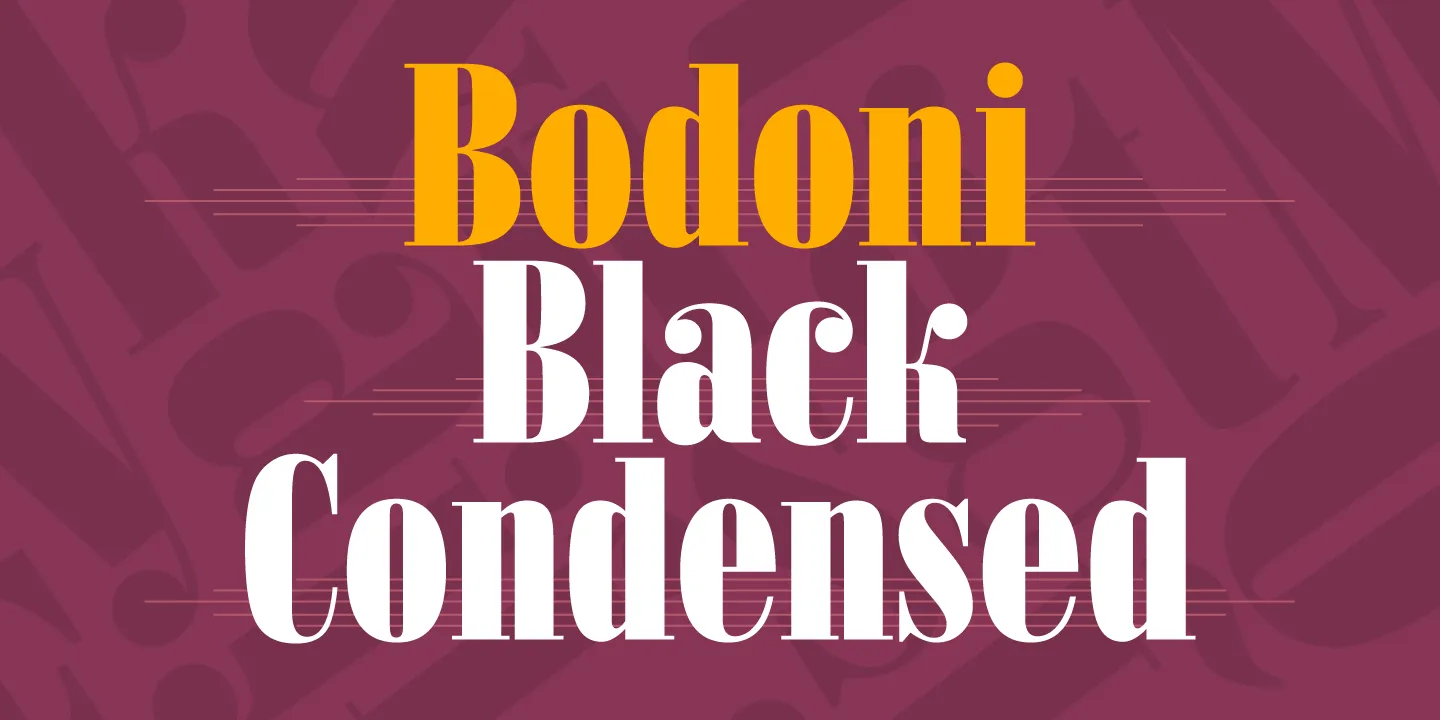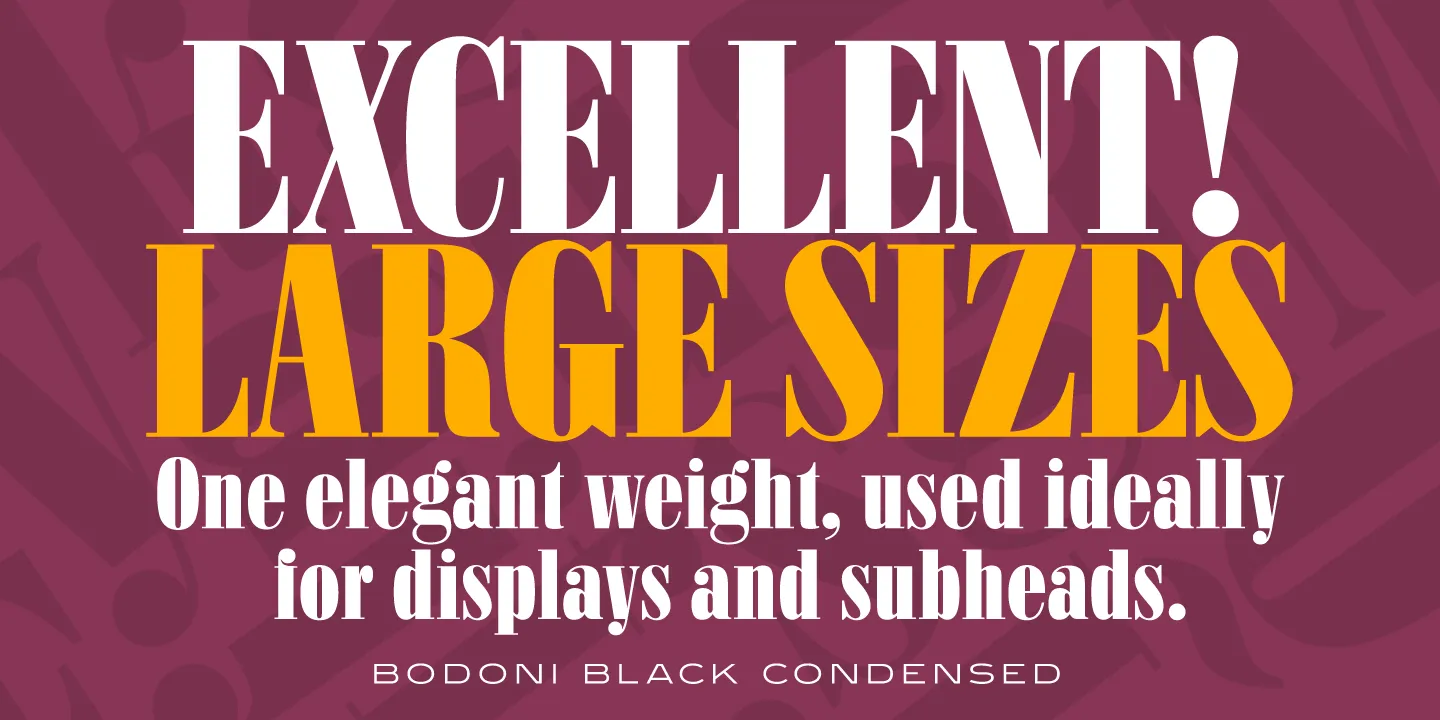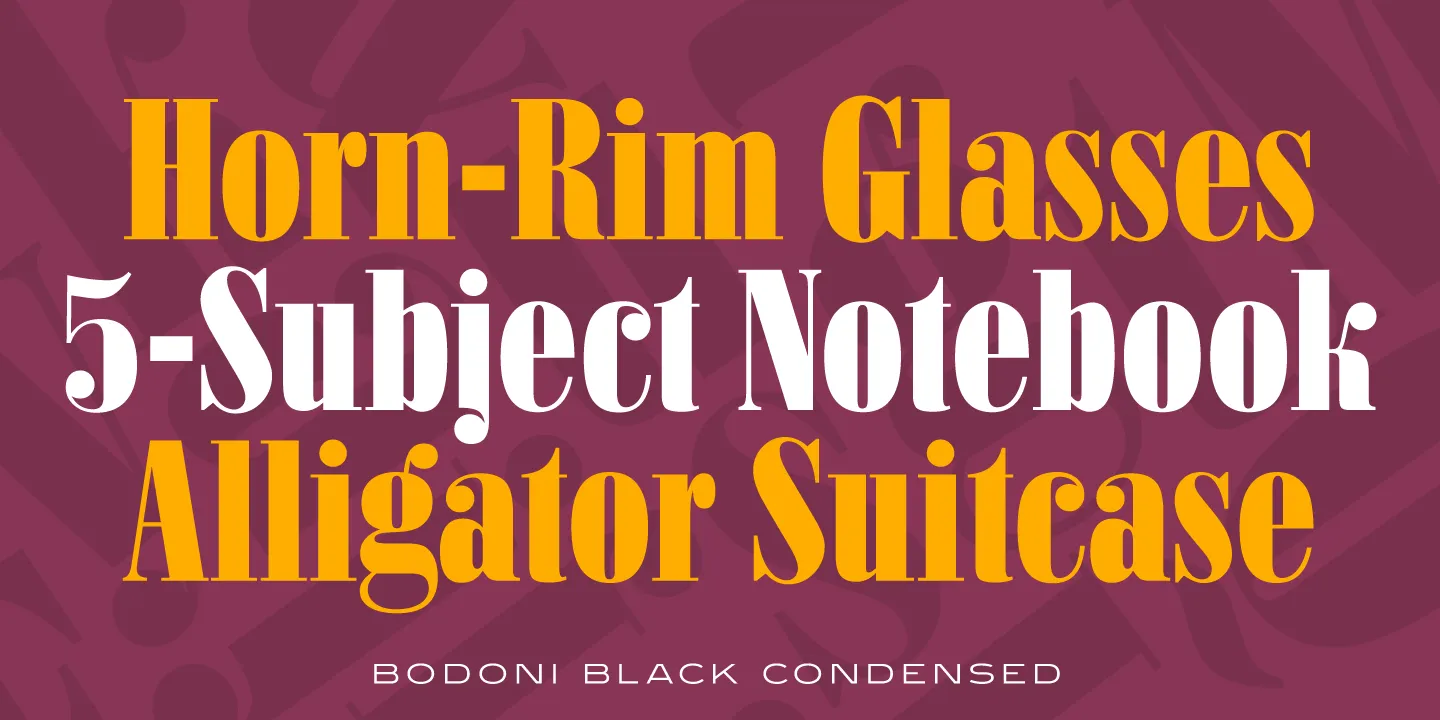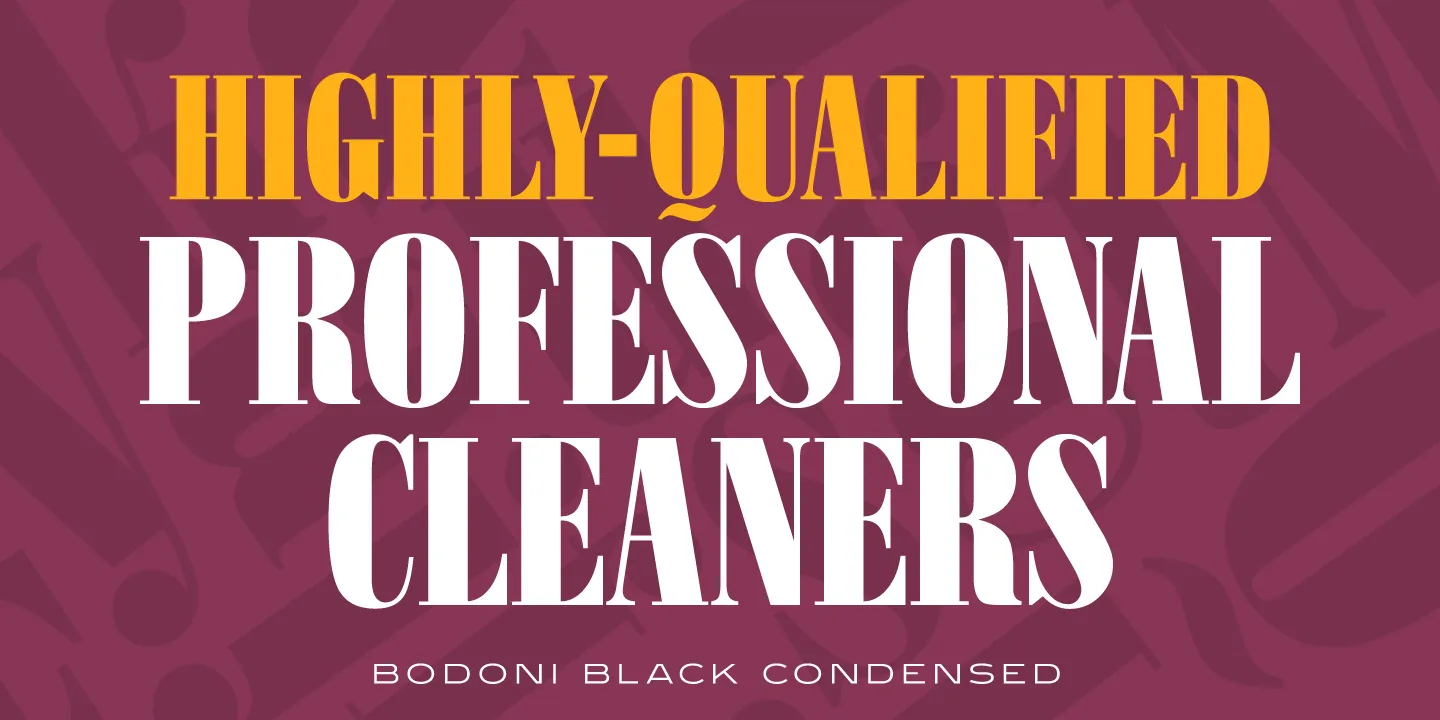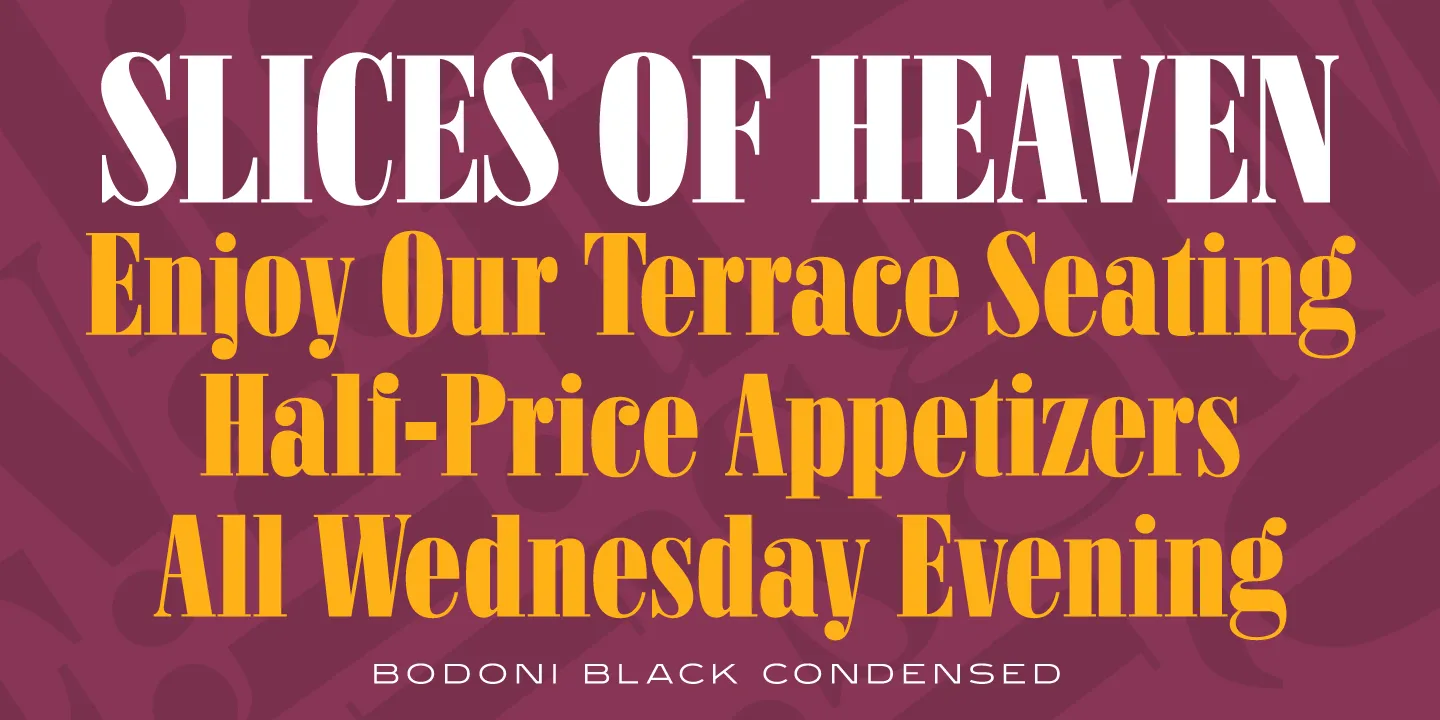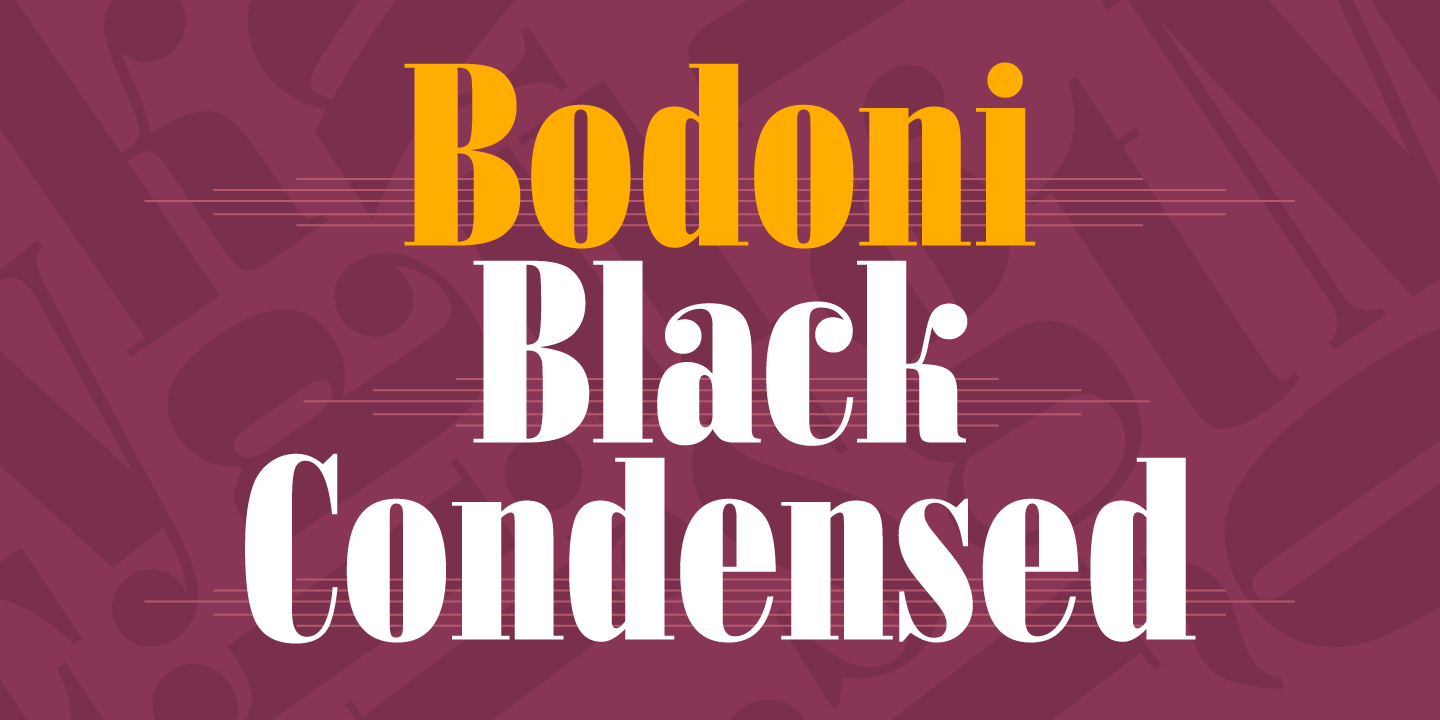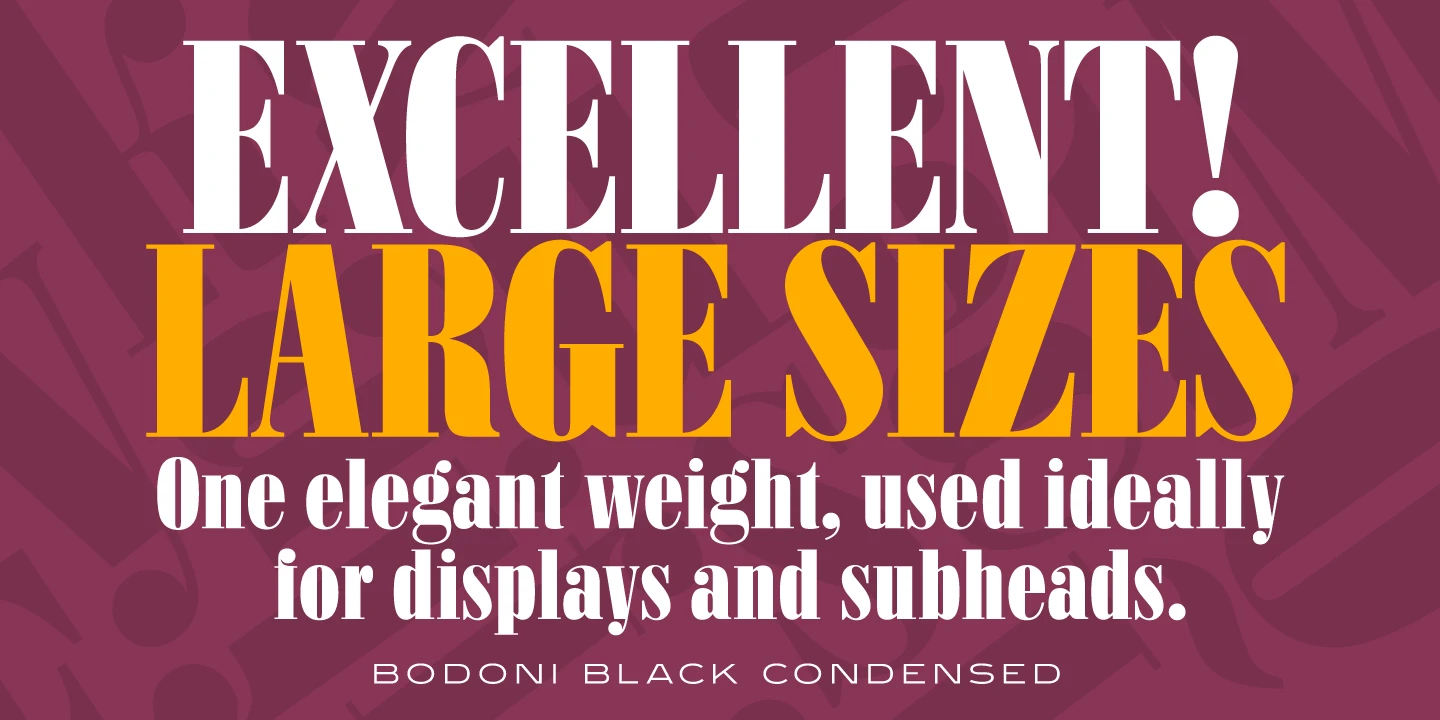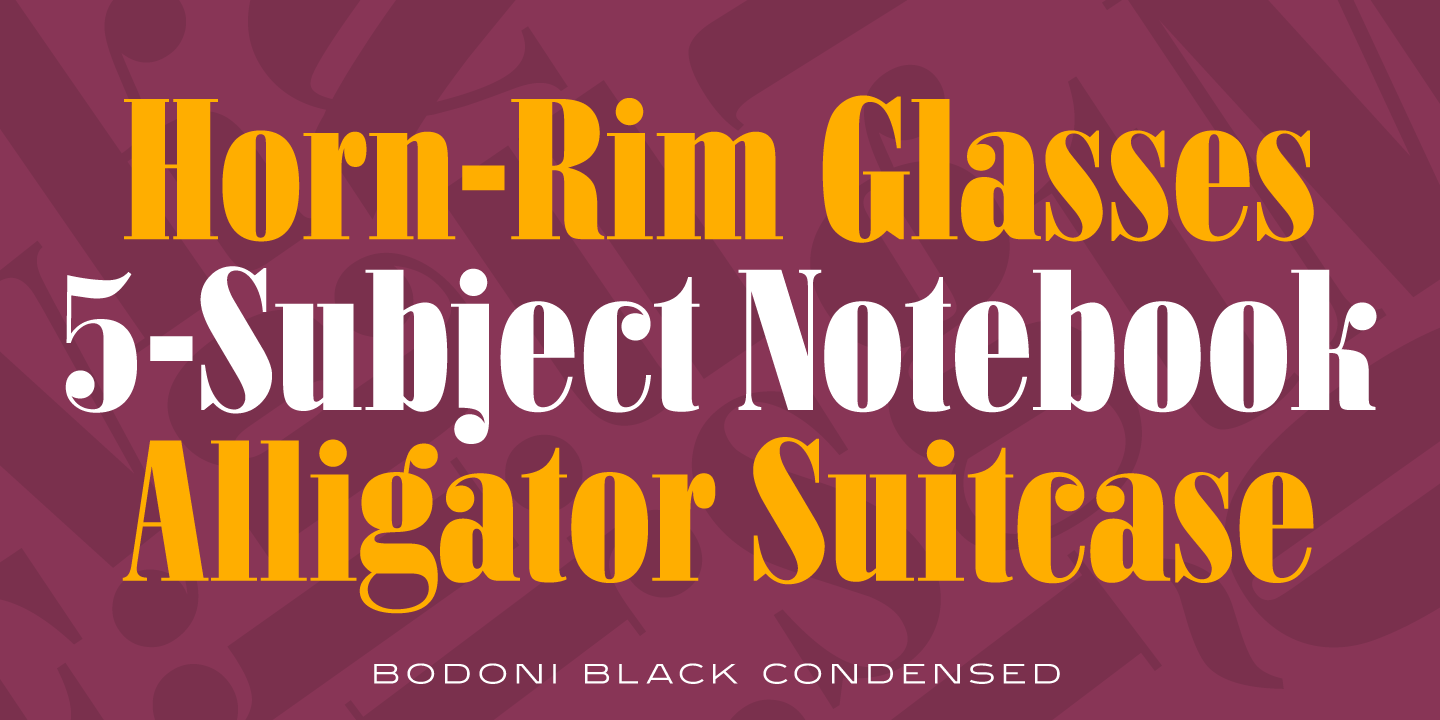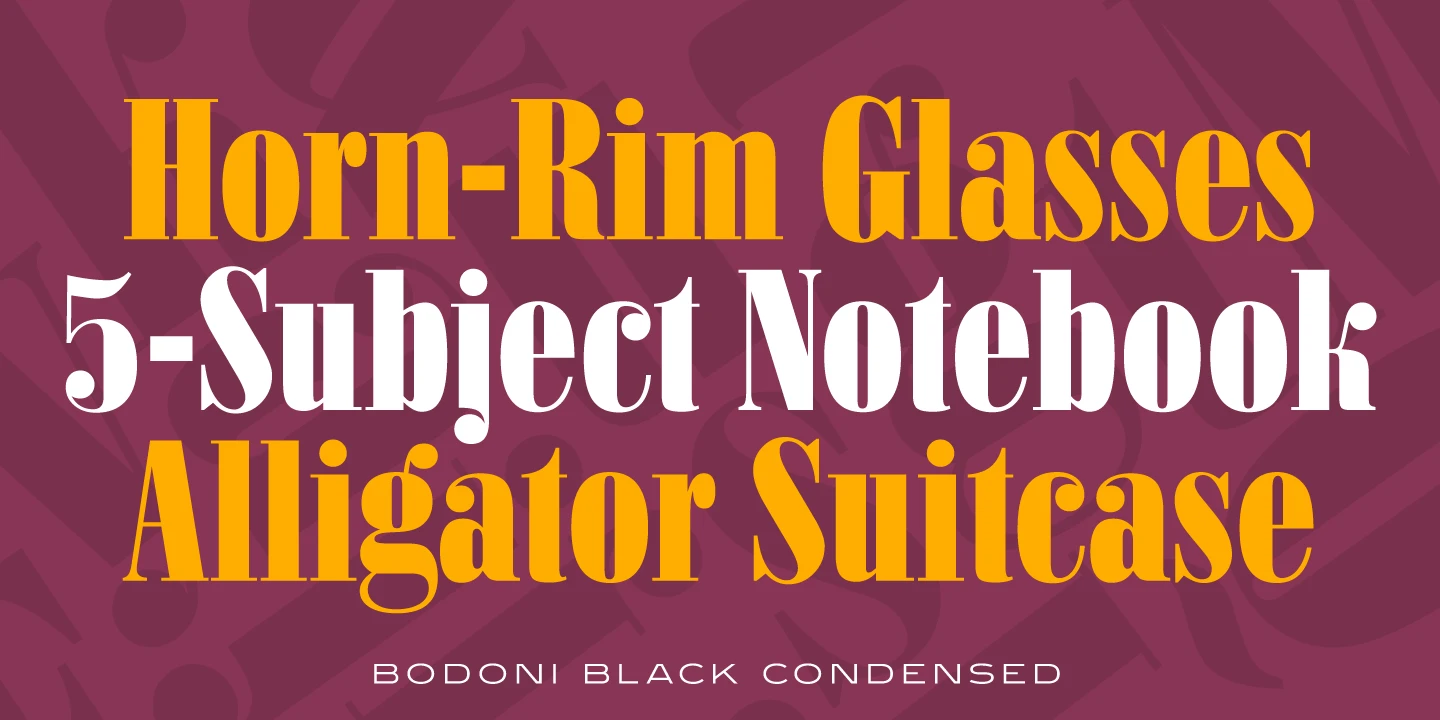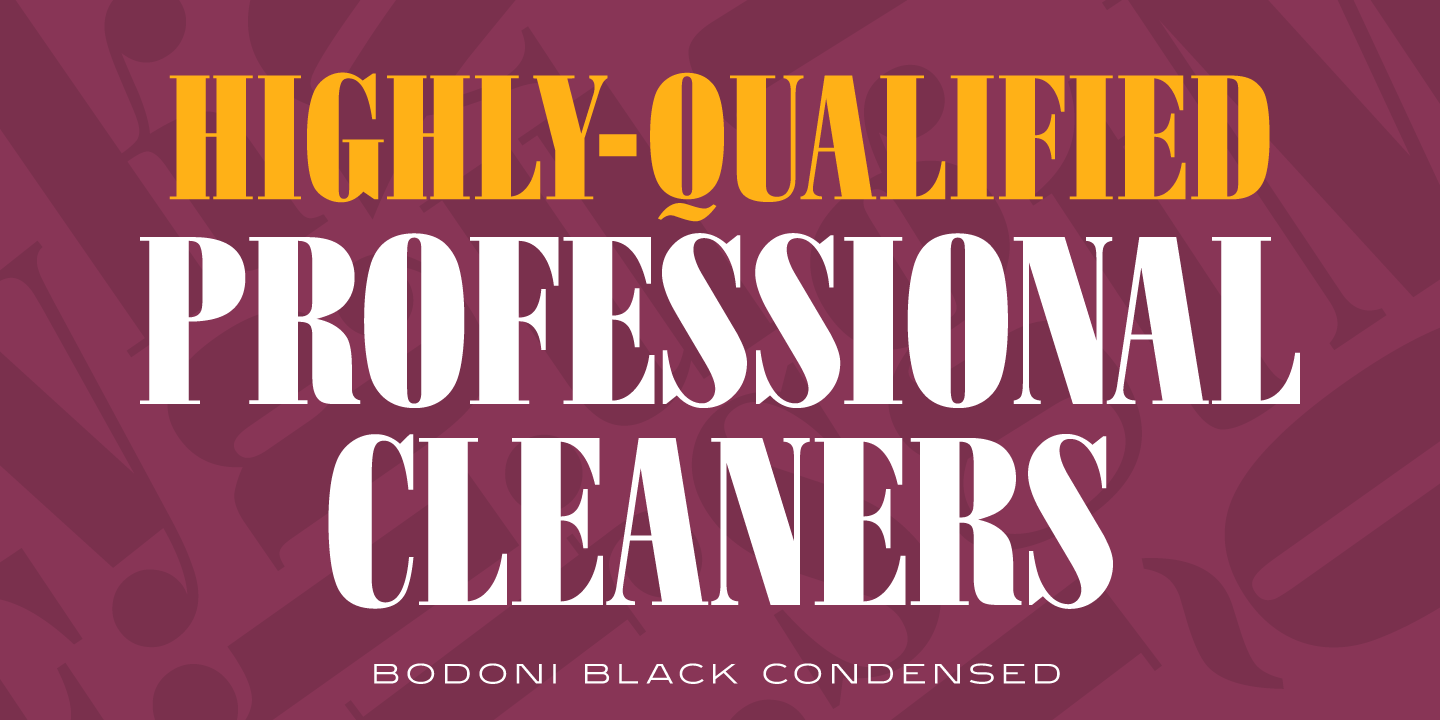
Bodoni Font
Bodoni Black Condensed is a condensed fat face serif typeface, exclusively licensed from the Ludlow Collection. The original was designed by R. H. Middleton for Ludlow, circa 1930, and Steve Jackaman (ITF) produced a digital version in 1998. Bodoni Black Condensed shines at display and subhead sizes, and its rounded ends give it a comfy feel. The lowercase k, g, j, and i are fan favorites, and the font is particularly impactful when used in all caps.